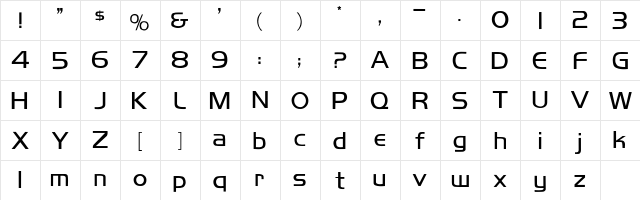
Koshgarian-Ligh Regular
Design Context for Koshgarian-Ligh Typeface
Koshgarian-Ligh offers clean, dependable letterforms without strong stylistic allegiance, making it a practical choice for designers who need flexibility.